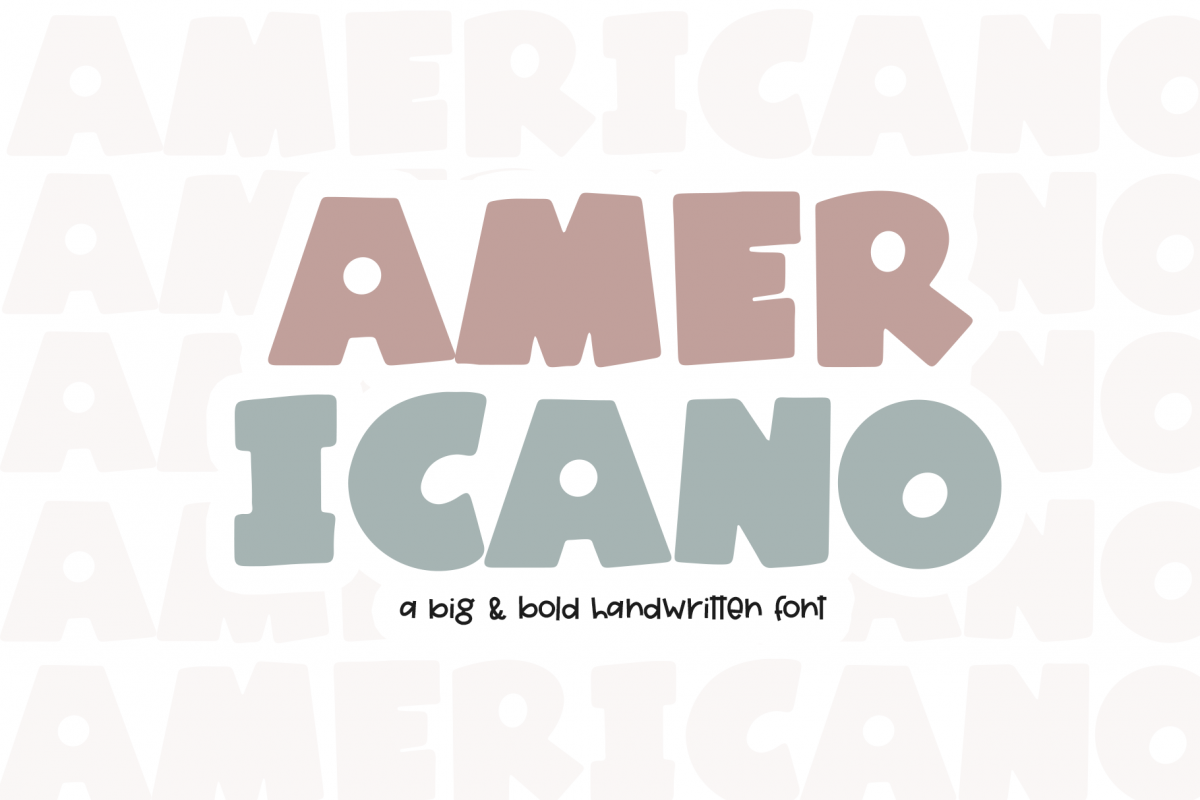
Americano - A Fun Handwritten Font
Americano
Americano is a big and bold handwritten font!
The letters are perfect for your crafting projects!
This font is perfect for quotes, shirt designs, websites, branding, children's designs,  blogs, logos, invitations and more!